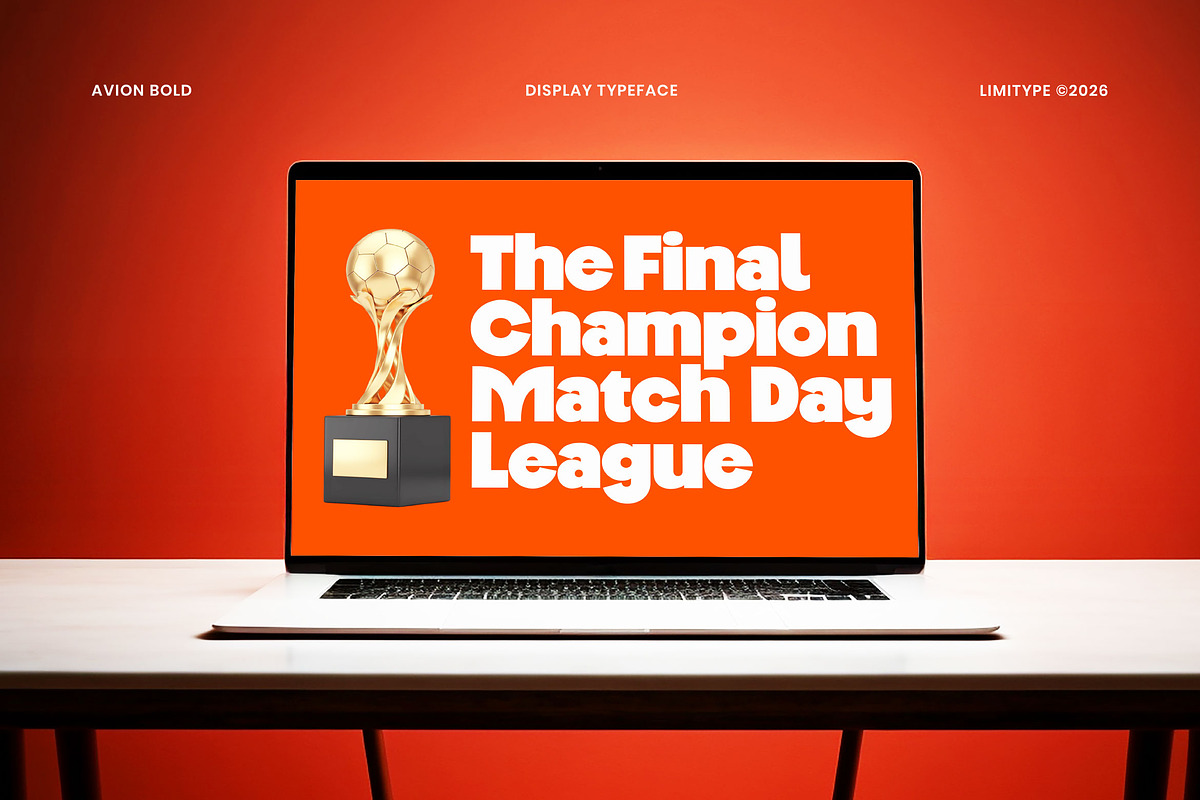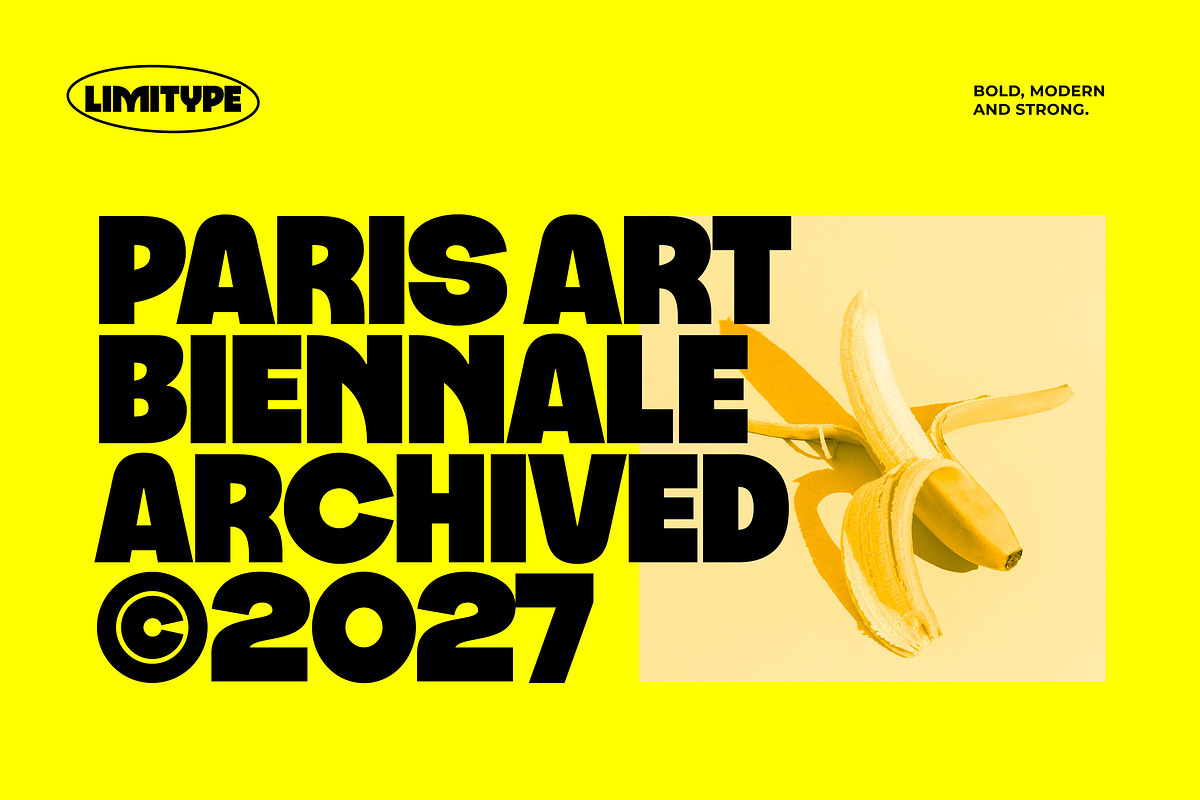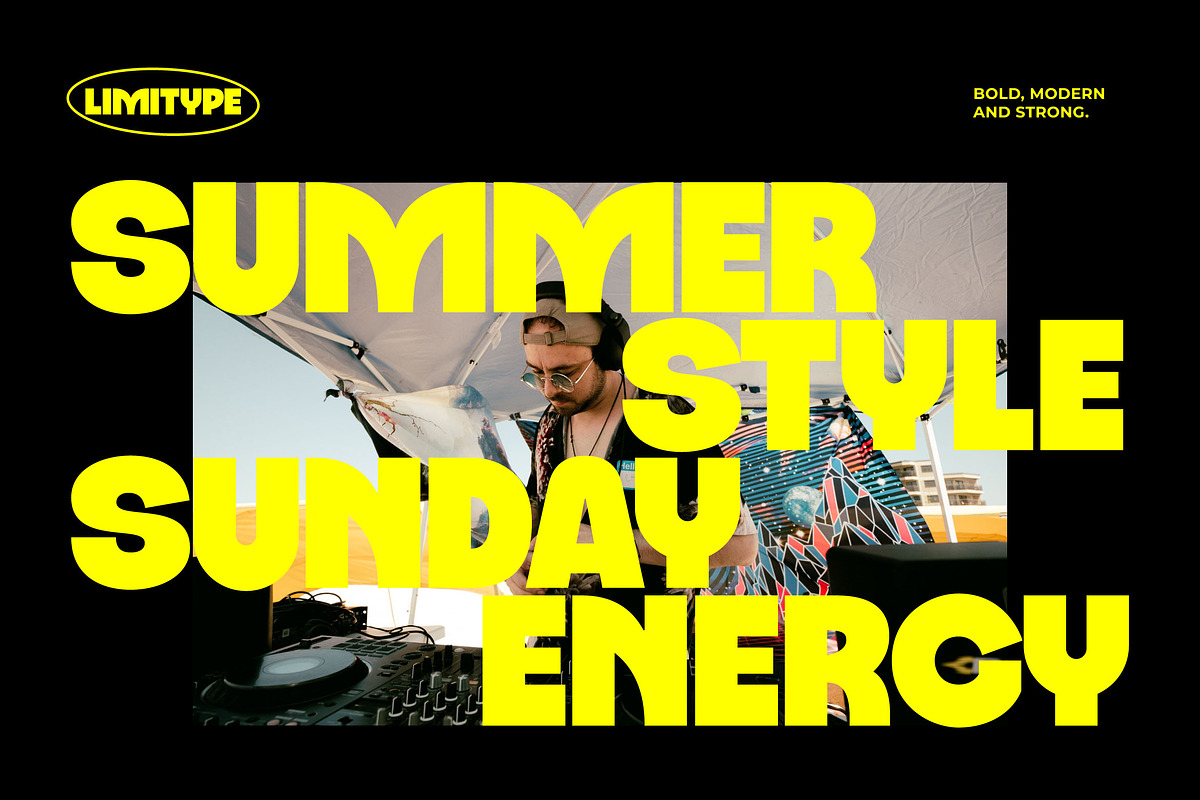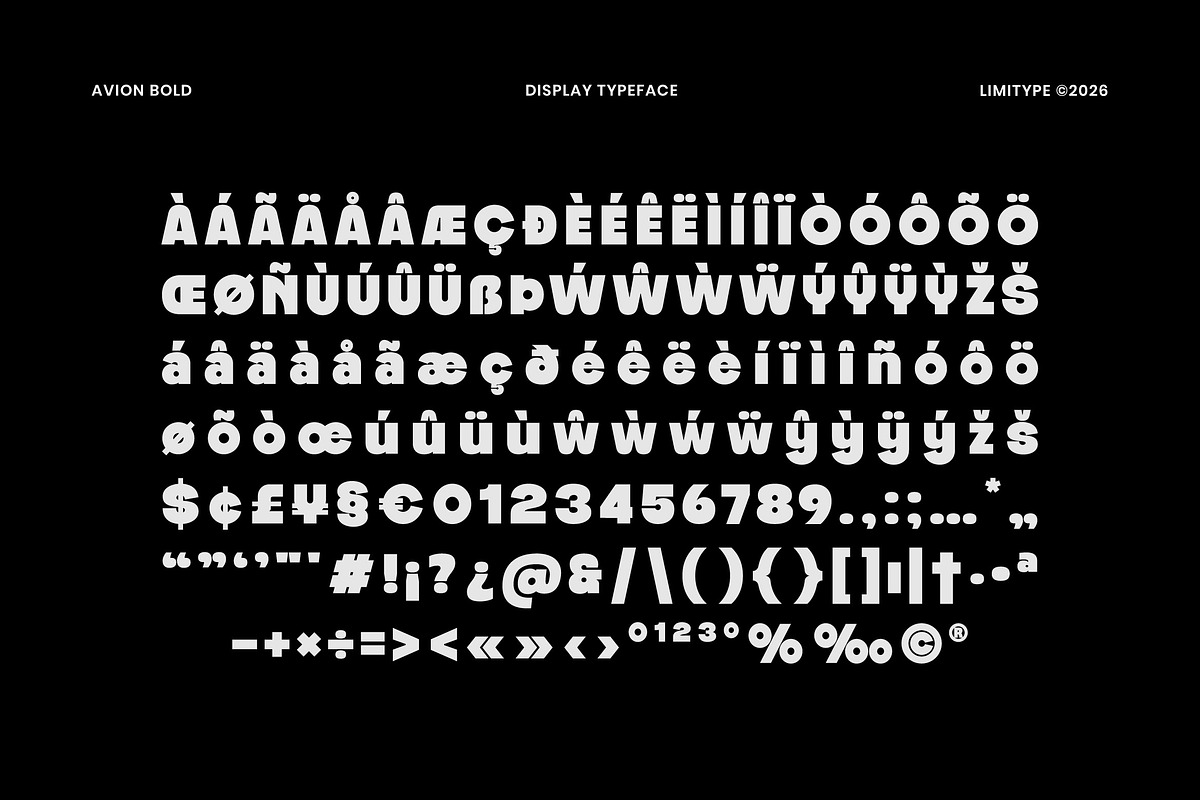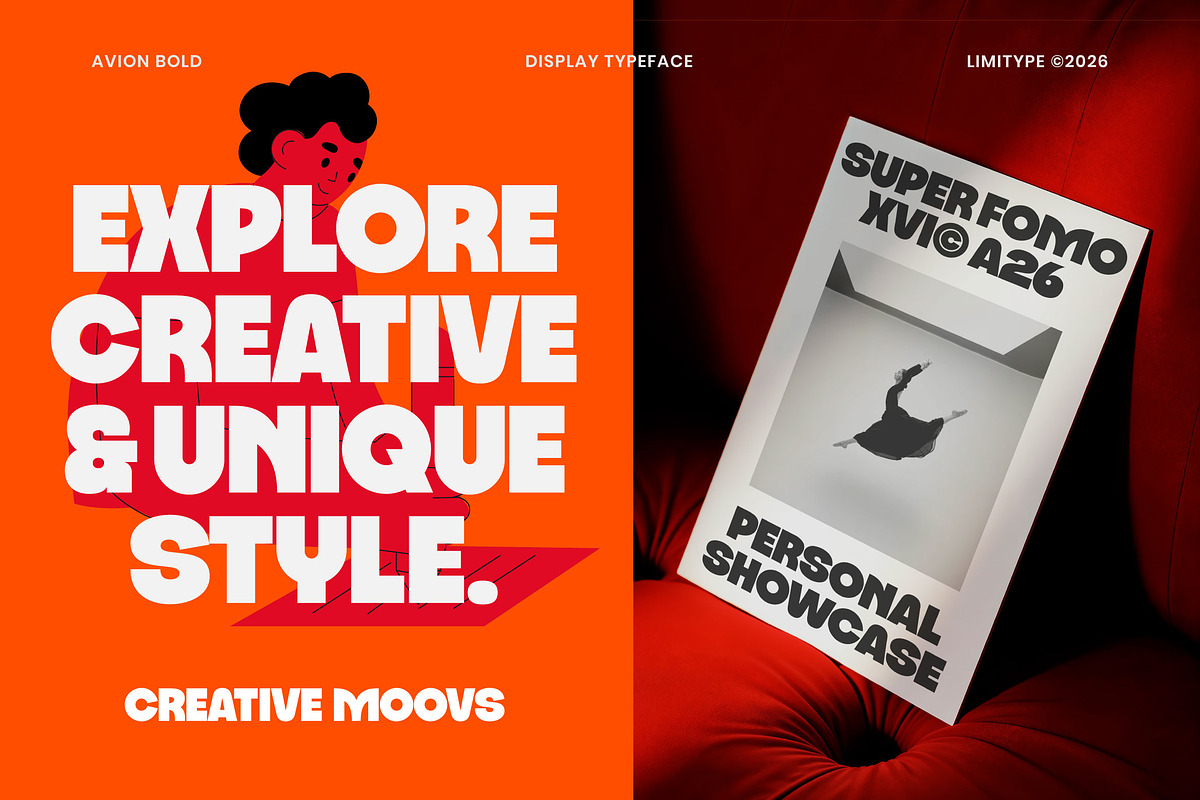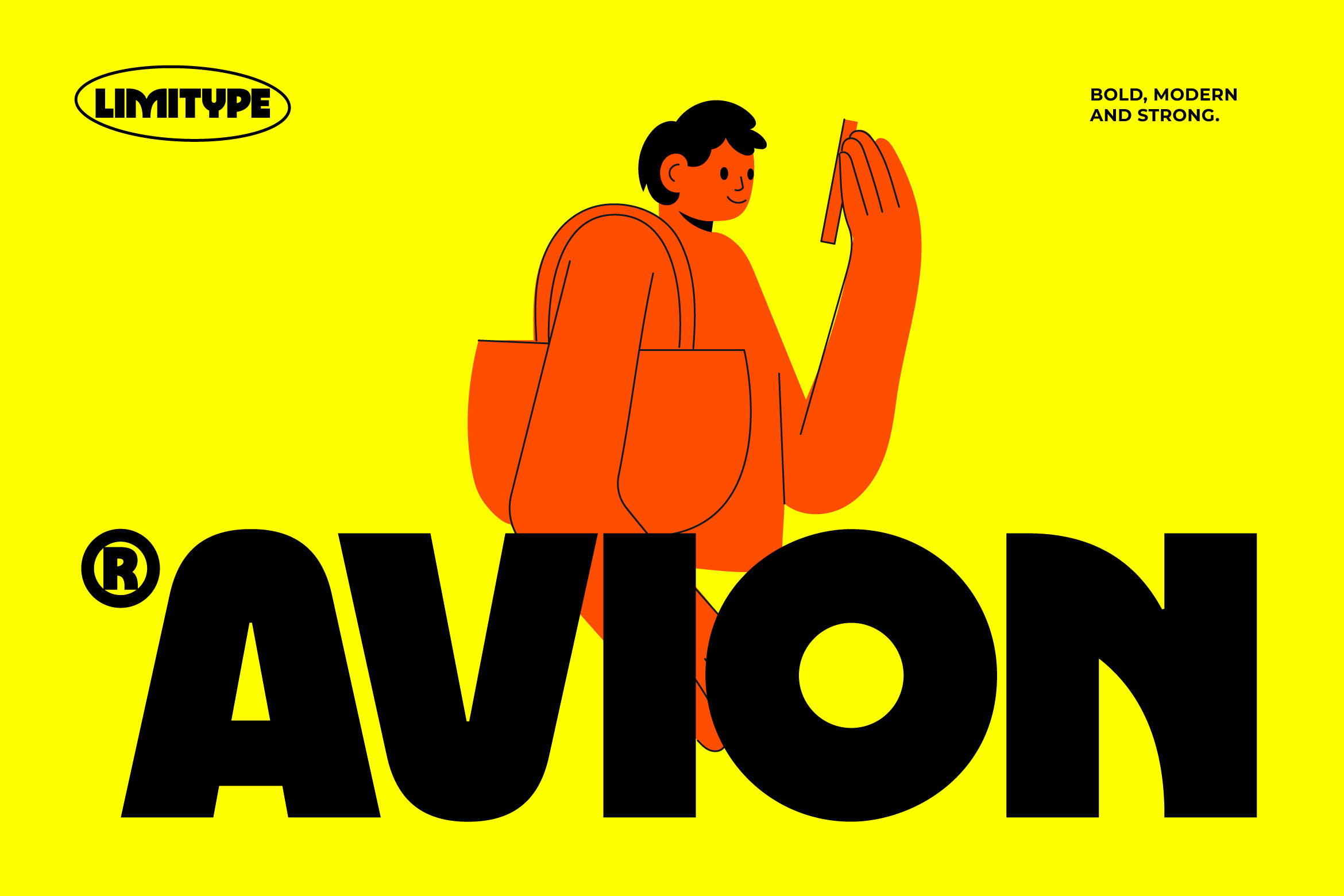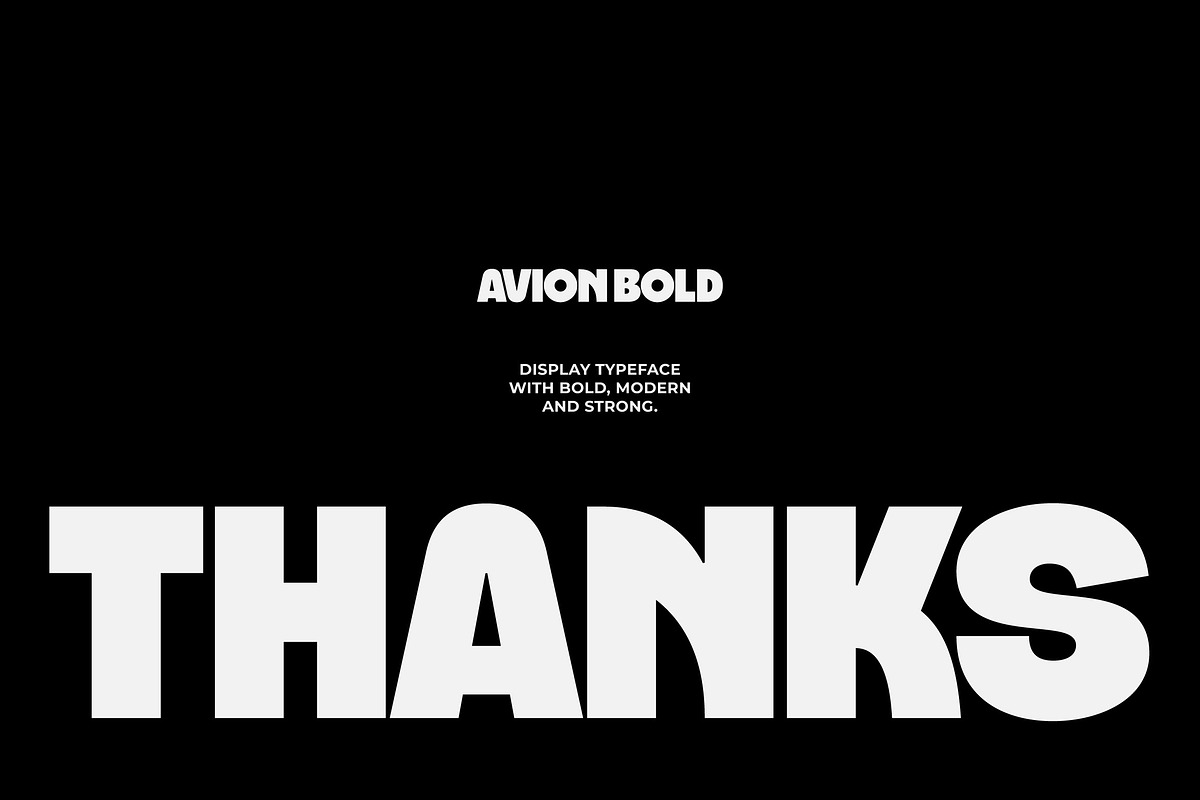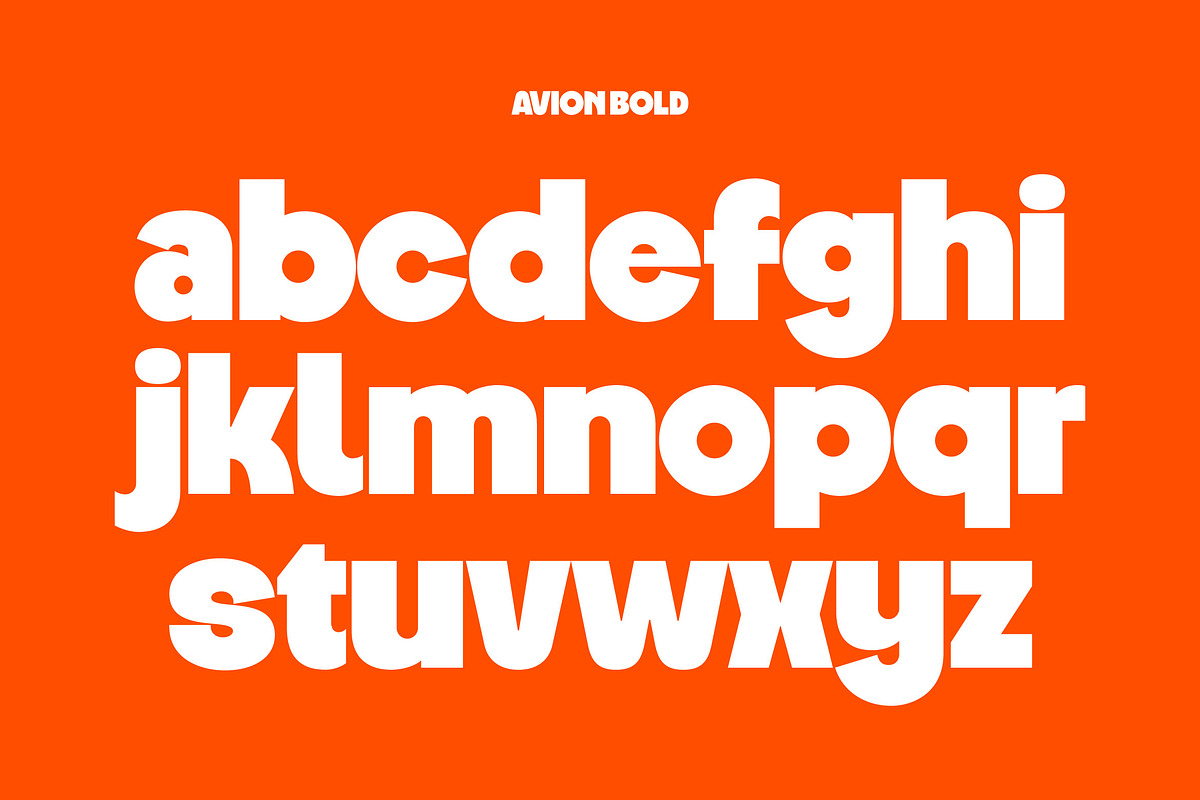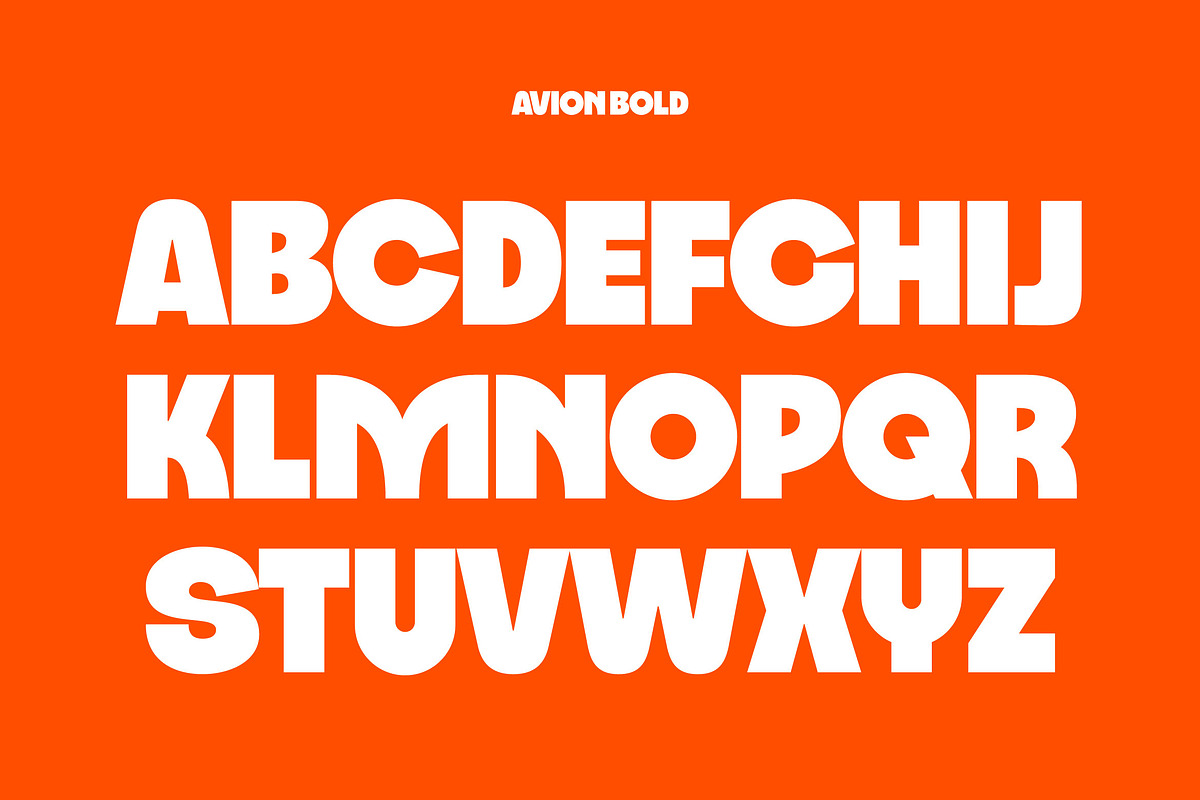
Avion - Modern Bold Font
Avion is a bold geometric display typeface featuring heavy rounded letterforms, smooth curves, and solid proportions. Its strong structure and modern forms create a distinctive visual presence with a playful edge, making it ideal for posters, headlines, branding, logos, packaging, editorial layouts, and social media graphics.